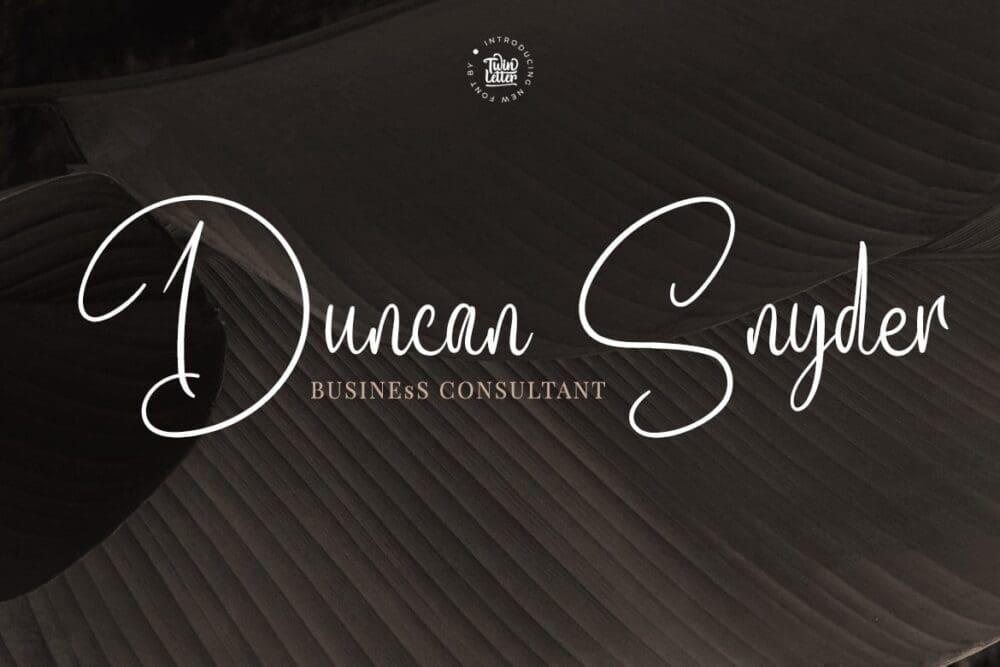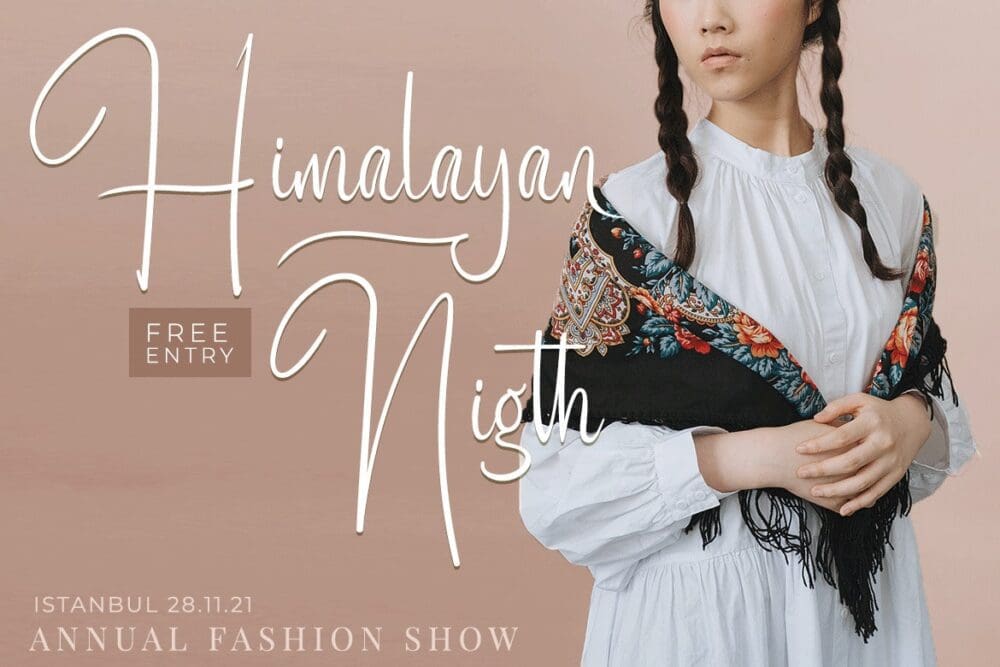
Adigussto Font
Adigussto is a Signature Font that we created with dramatic hand strokes paying attention to the aesthetic appearance in every curve that is so elegant and fun.